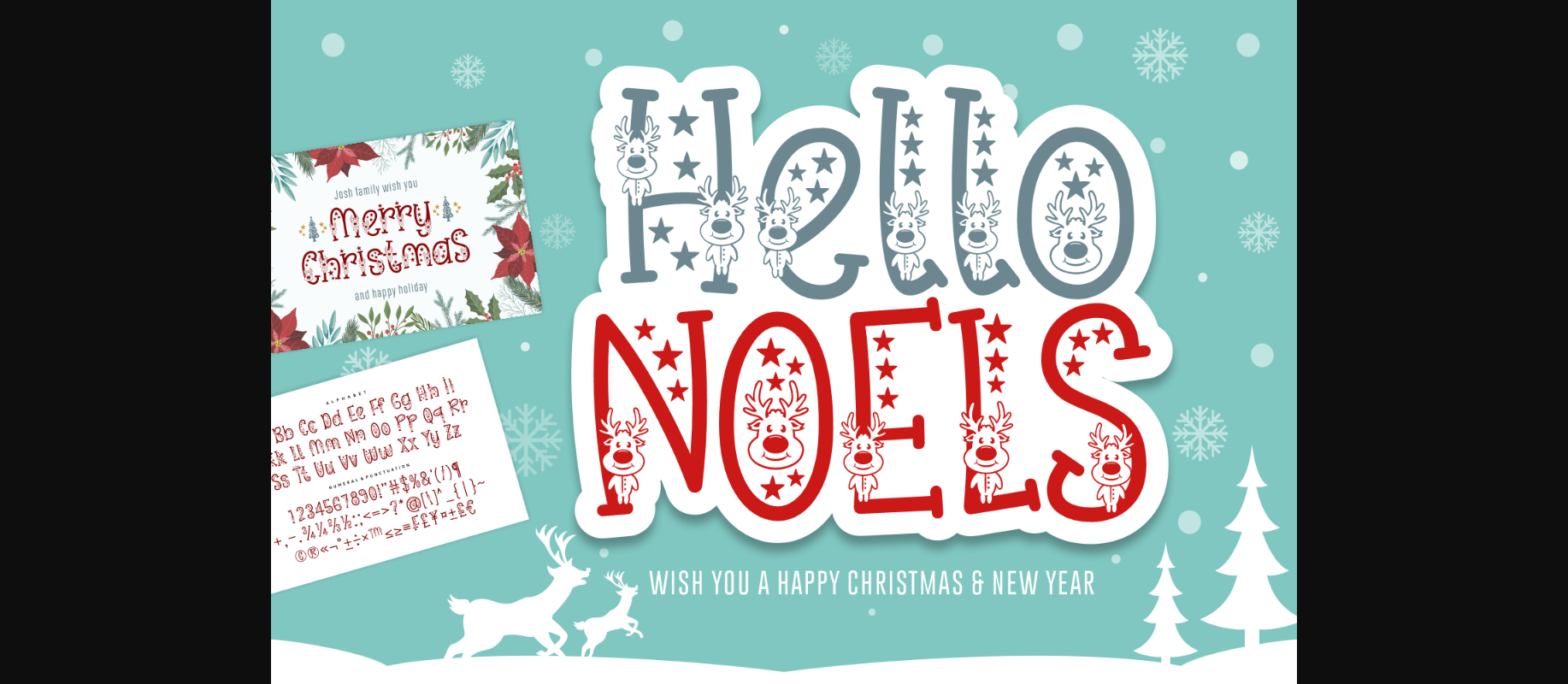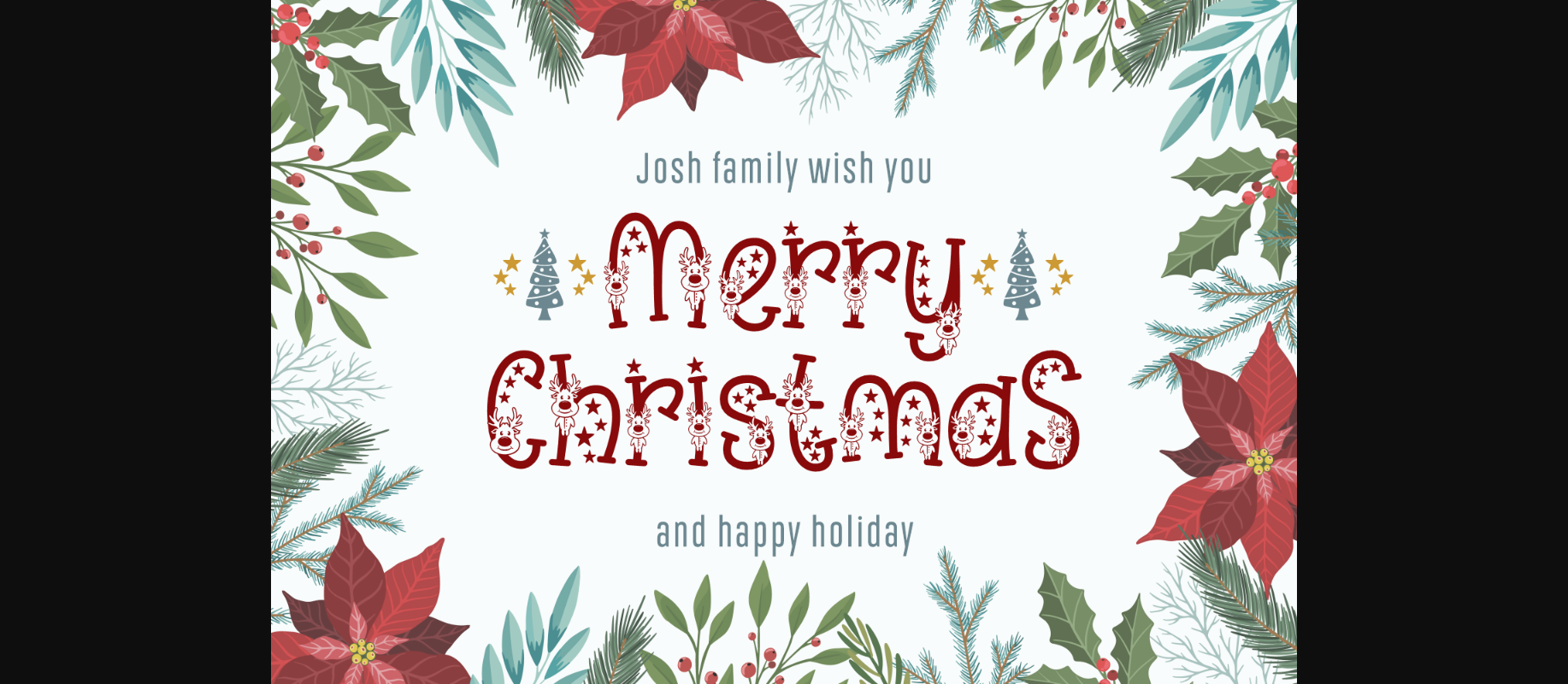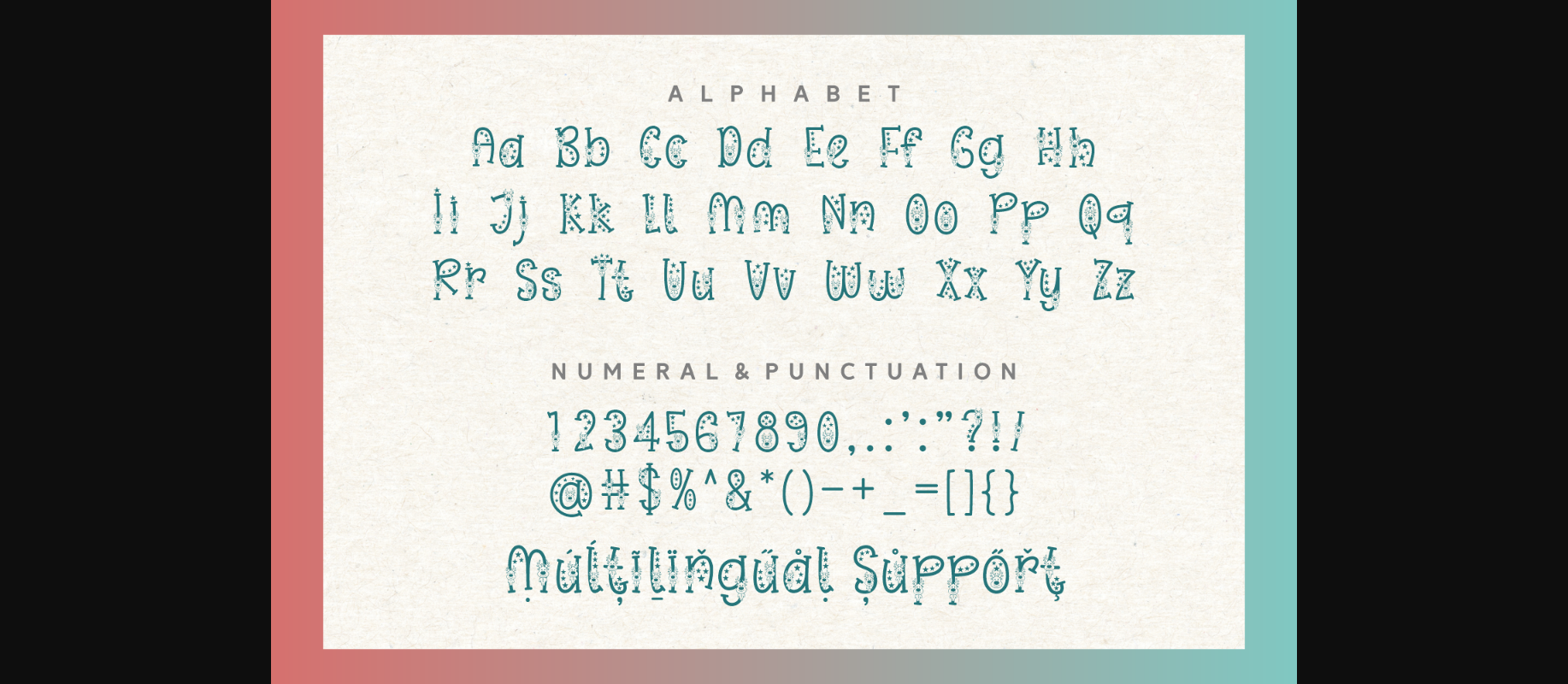
About Hello Noels Font
Hello Noels is a cute and festive decorative font. Whether you’re using it for crafts, digital design, presentations, or making greeting cards, this font has the potential to become your favorite go-to font, no matter the occasion!